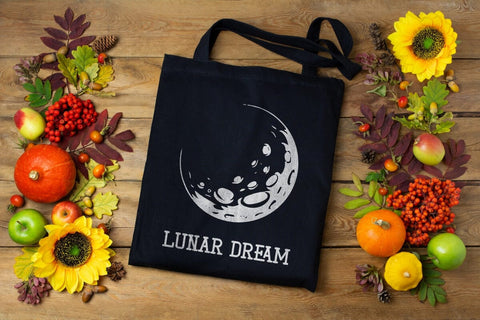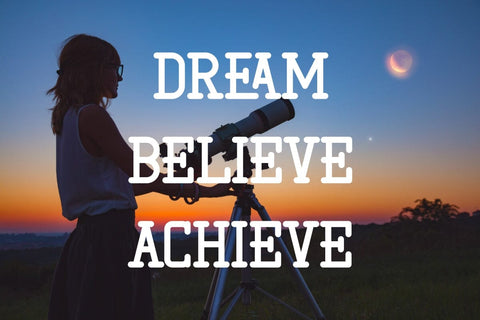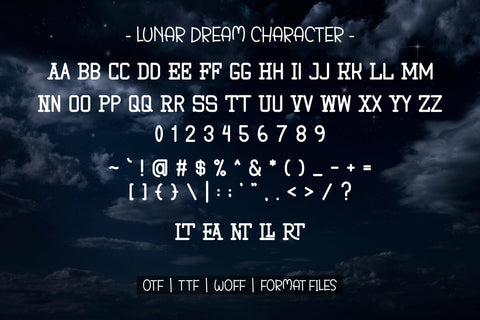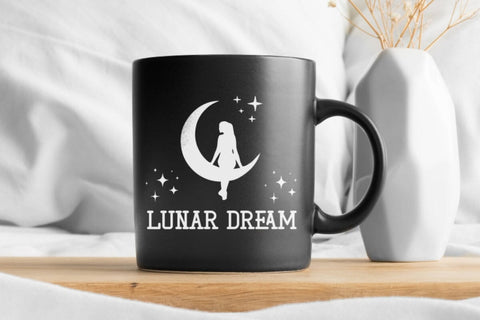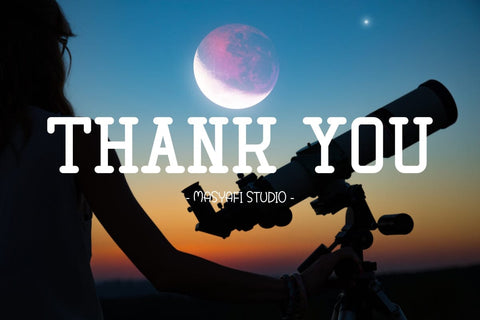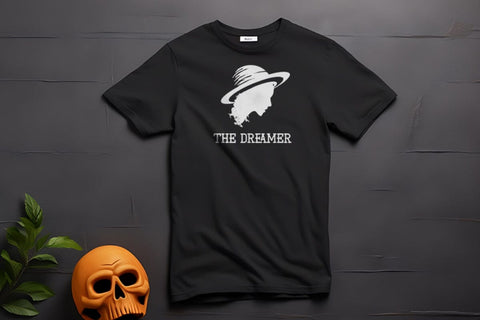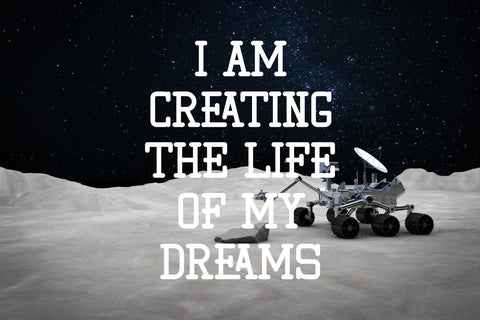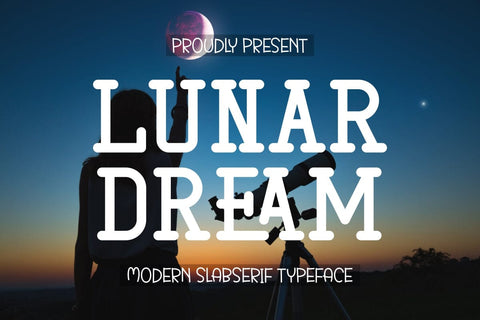
Lunar Dream - Slab Serif Font
Hi, Introducing Lunar Dream - Slab Serif Font
A Slab Serif font with a modern, clean style. This font can perfect your creativity. This font is cool for t-shirts, stickers, mugs, prints, labels, crafts, SVG cut files, Cricut, wall art, social media, web, branding, business, and many other ideas.